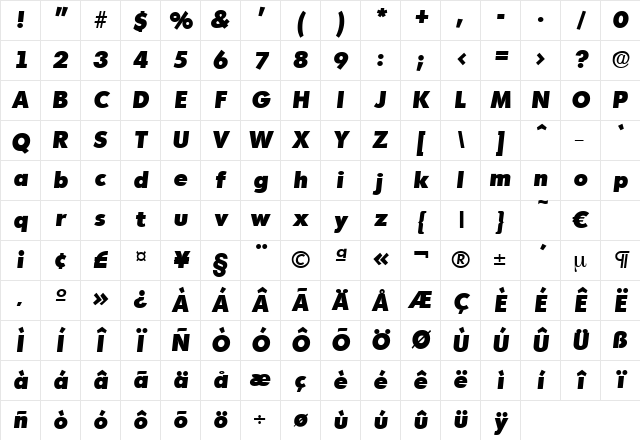
Montreal-HeavyIta Regular
Complete Montreal-HeavyIta Regular glyph index. Displaying only characters natively supported by Montreal-HeavyIta Regular font.
Design Context for Montreal-HeavyIta
Montreal-HeavyIta is a composed and adaptable typeface that performs quietly and consistently across a wide range of design contexts.
Pro Tip: Use Montreal-HeavyIta in both headline and body roles to test its range before committing to a single application.